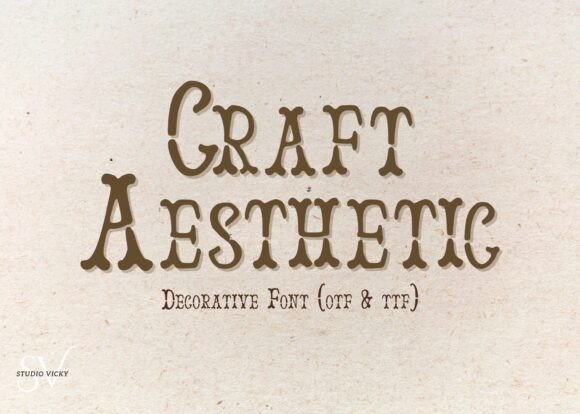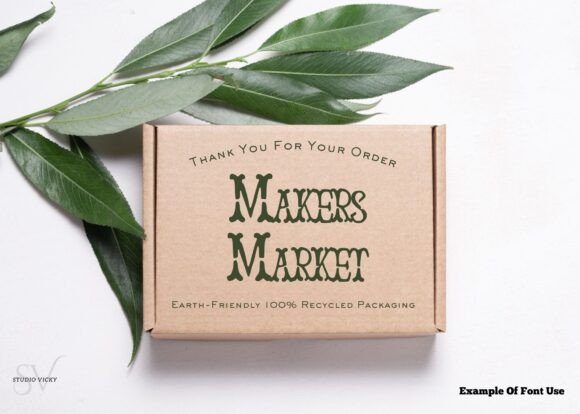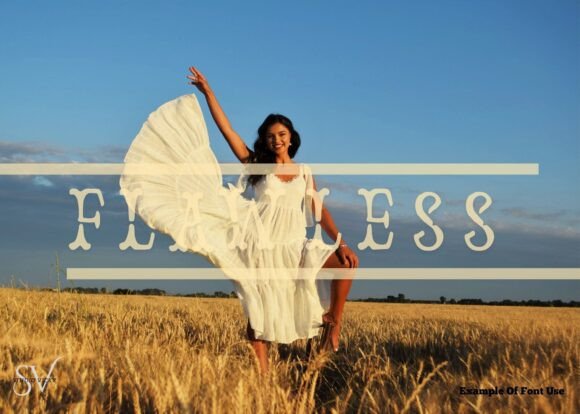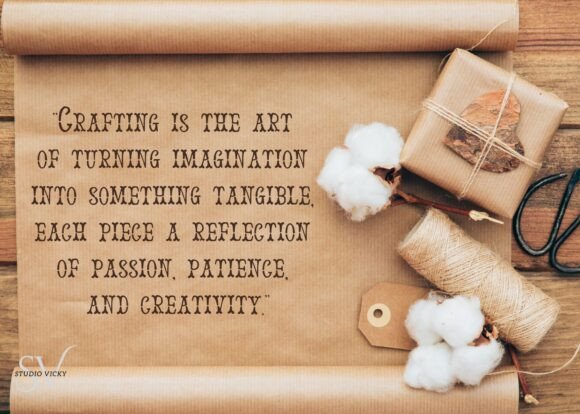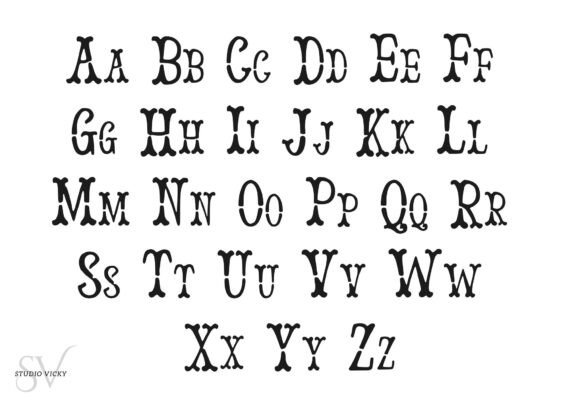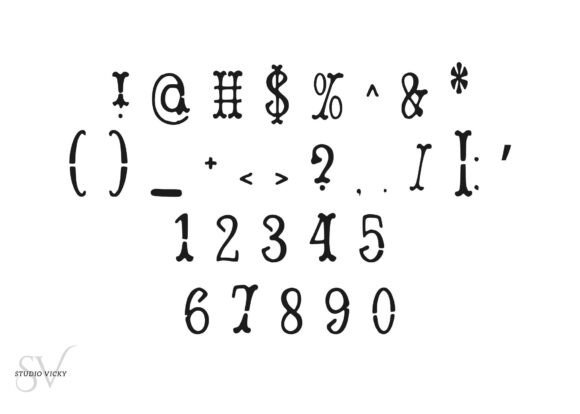
Craft Aesthetic Font: Elevate Your Designs with a Touch of Creativity
Are you a maker, designer, or creative looking for a font that captures the essence of handmade and unique designs? Look no further than the Craft Aesthetic Font, a decorative font bundle that’s perfect for adding a personal touch to your projects. In this article, we’ll dive into the world of Craft Aesthetic Font and explore its features, benefits, and uses.
What is Craft Aesthetic Font?
Craft Aesthetic Font is a versatile font bundle designed specifically for makers and designers. This beautiful font is ideal for creating visually appealing quotes, branding materials, t-shirts, mugs, websites, blogs, logos, social media graphics, invitations, and more. With its unique and decorative style, Craft Aesthetic Font is perfect for adding a touch of personality to your designs.
Key Features of Craft Aesthetic Font
- Unique and Decorative Style: Craft Aesthetic Font boasts a distinctive and eye-catching design that’s sure to make your projects stand out.
- Versatile: This font bundle is suitable for a wide range of applications, from digital designs to print materials.
- Easily Customizable: Craft Aesthetic Font is easy to edit and customize, allowing you to tailor it to your specific needs.
- High-Quality: This font bundle is designed with high-quality and clarity in mind, ensuring that your designs look professional and polished.
Benefits of Using Craft Aesthetic Font
So, why choose Craft Aesthetic Font for your designs? Here are just a few benefits of using this amazing font bundle:
- Adds a Personal Touch: Craft Aesthetic Font allows you to add a personal touch to your designs, making them more unique and engaging.
- Enhances Brand Identity: With its distinctive style, Craft Aesthetic Font can help you establish a strong brand identity that sets you apart from others.
- Saves Time: This font bundle is easy to use and customize, saving you time and effort in the design process.
- Perfect for Creatives: Craft Aesthetic Font is specifically designed for makers, designers, and creatives, making it an ideal choice for anyone looking for a unique and decorative font.
Uses of Craft Aesthetic Font
Craft Aesthetic Font is an incredibly versatile font bundle that can be used in a wide range of applications, including:
- Quotes and Typography: Use Craft Aesthetic Font to create stunning quotes and typography designs that inspire and engage.
- Branding and Logos: This font bundle is perfect for creating unique and memorable logos and branding materials.
- T-Shirts and Apparel: Craft Aesthetic Font is ideal for designing custom t-shirts, mugs, and other apparel.
- Websites and Blogs: Use this font bundle to add a touch of personality to your website or blog.
- Social Media Graphics: Craft Aesthetic Font is perfect for creating eye-catching social media graphics that grab attention.
- Invitations and Stationery: This font bundle is suitable for designing beautiful invitations, stationery, and other paper crafts.
In conclusion, Craft Aesthetic Font is a must-have for any maker, designer, or creative looking for a unique and decorative font. With its versatile style, ease of use, and high-quality design, this font bundle is perfect for adding a personal touch to your projects. Whether you’re designing quotes, branding materials, t-shirts, or social media graphics, Craft Aesthetic Font is the perfect choice. So why wait? Get your hands on Craft Aesthetic Font today and elevate your designs to the next level!
- Craft Aesthetic Font is a decorative font bundle designed for makers and designers.
- This font bundle is versatile and suitable for a wide range of applications.
- Craft Aesthetic Font adds a personal touch to designs and enhances brand identity.
- This font bundle is easy to use and customize, saving time and effort.